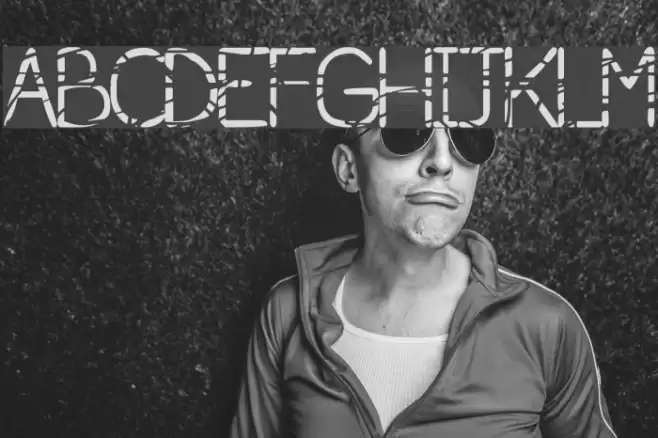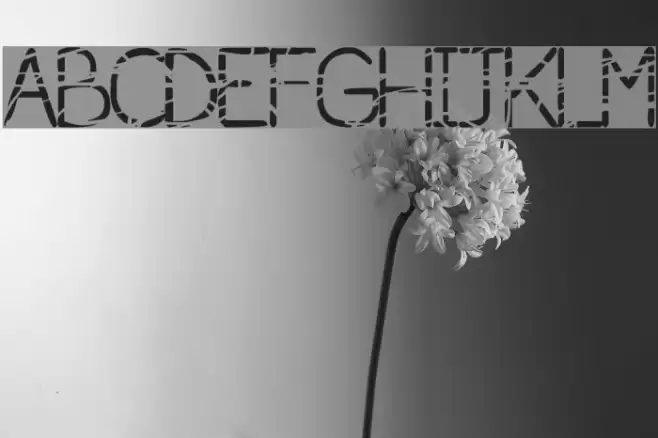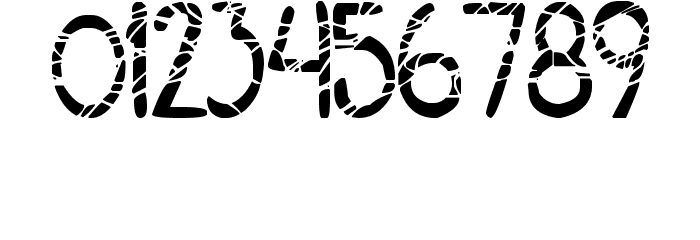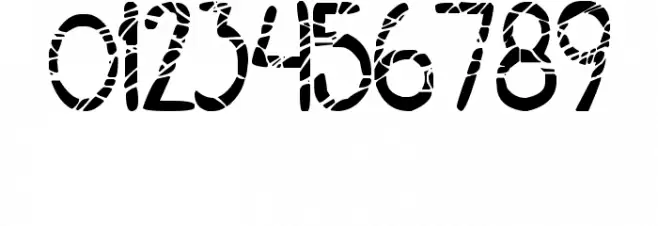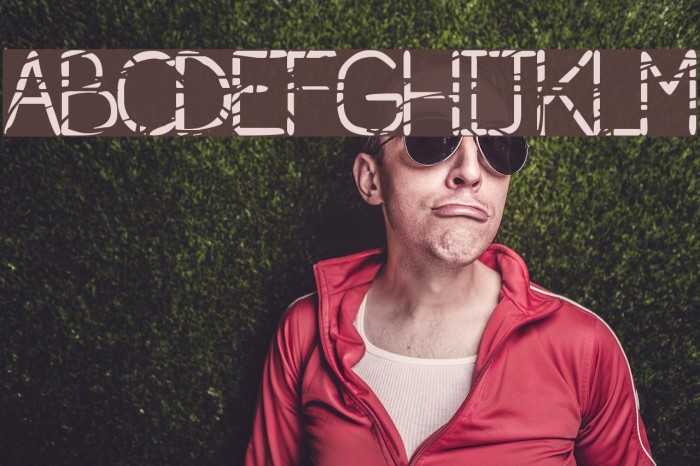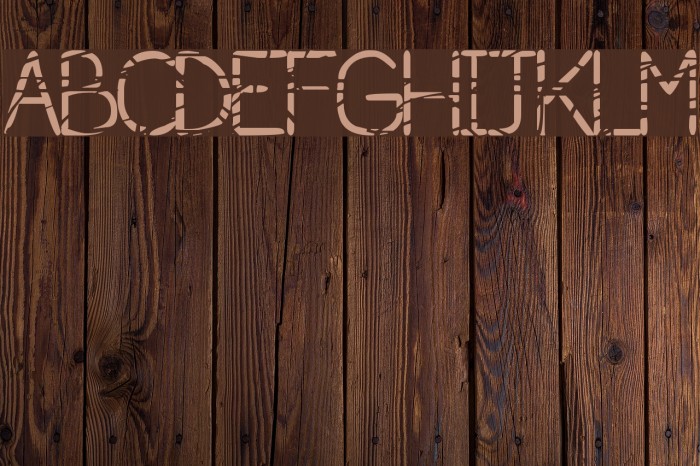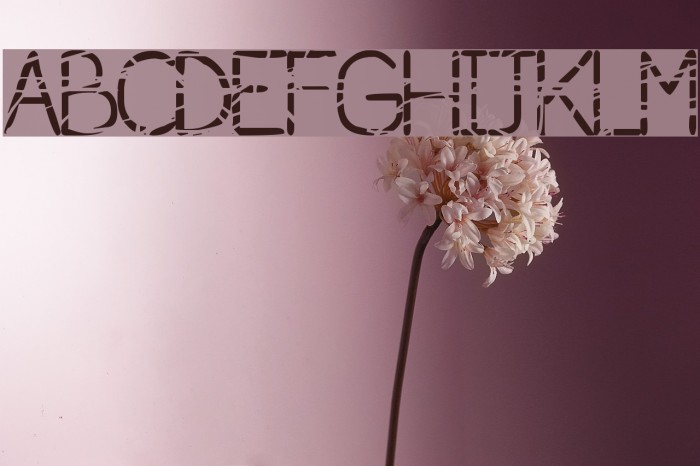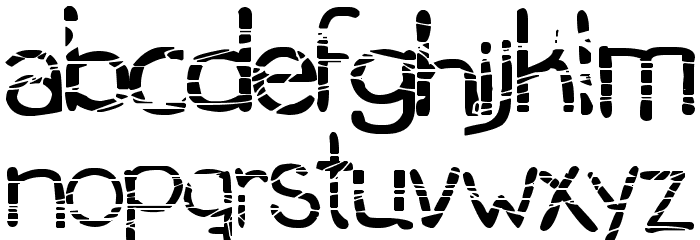
serial killer Font
serial killer Description
This font features a unique, distressed appearance with a pattern of irregular cuts and lines running through each character, giving it a fragmented and edgy look. The uppercase and lowercase letters maintain a consistent style, with sharp angles and a modern aesthetic. The numbers and special characters follow the same design, ensuring uniformity across all glyphs. The font's distinct style makes it stand out, ideal for projects requiring a bold and unconventional typeface. Its fragmented design suggests a sense of chaos or disruption, making it suitable for creative and artistic applications.
A fragmented, edgy font with irregular cuts and a modern aesthetic from Distorted Eroded fonts.
- Proposed Projects: Ideal for album covers, movie posters, edgy branding, and artistic projects.
- Overall Style: Modern, Edgy
- Use Case: Headlines, Logos, Artistic projects